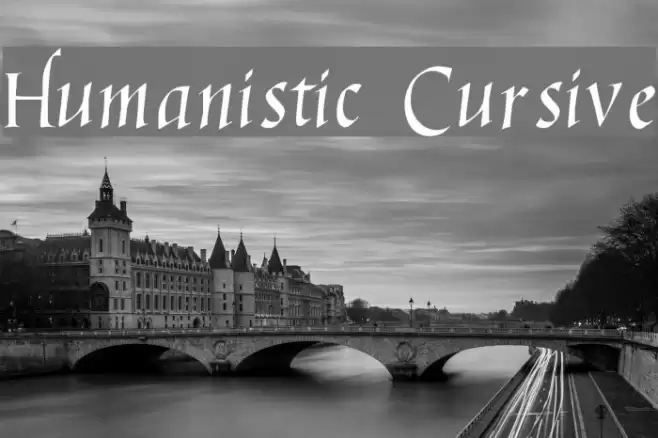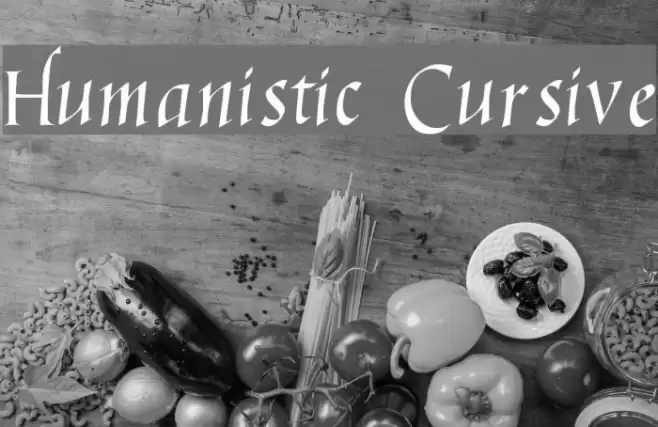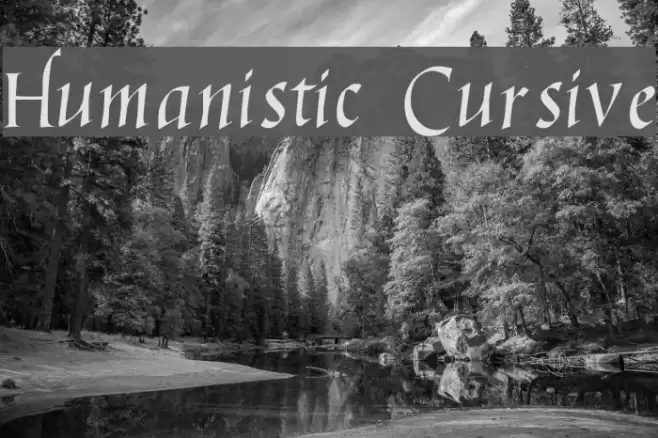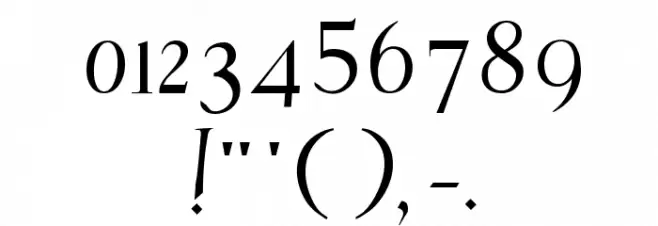
Humanistic Cursive Font
Humanistic Cursive Description
This font exudes a humanistic and cursive style, characterized by its elegant and flowing letterforms. The uppercase letters feature a dynamic and slightly italicized appearance, with sharp serifs and a sense of movement. The lowercase letters maintain a consistent flow, enhancing readability while retaining a sophisticated flair. Numerals are designed with a classic touch, complementing the overall aesthetic. Special characters are thoughtfully integrated, ensuring versatility in various contexts. The font's design is suitable for projects that require a blend of tradition and modernity, offering a unique visual appeal.
An elegant humanistic cursive font with dynamic serifs and flowing letterforms from Uncategorized fonts.
- Proposed Projects: Ideal for wedding invitations, elegant branding, book covers, and artistic posters.
- Overall Style: Classic